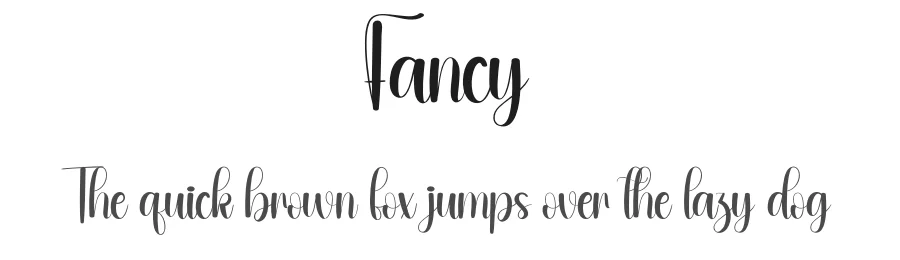
About Byebeach Font
Byebeach Specifications
| Font Family | Byebeach |
| Full Name | Byebeach |
| Glyph Count | 201 glyphs |
| PostScript Name | ByebeachRegular |
Byebeach ships with 1 OpenType feature you can switch on in apps that support them (Illustrator, InDesign, Affinity, Figma, CSS font-feature-settings).
Byebeach supports 211 languages.
Byebeach Font is a script font that shines as a display or heading face. Pair it with a clean sans-serif or serif font for body text β the contrast creates a clear hierarchy while the two styles stay balanced and easy to read.